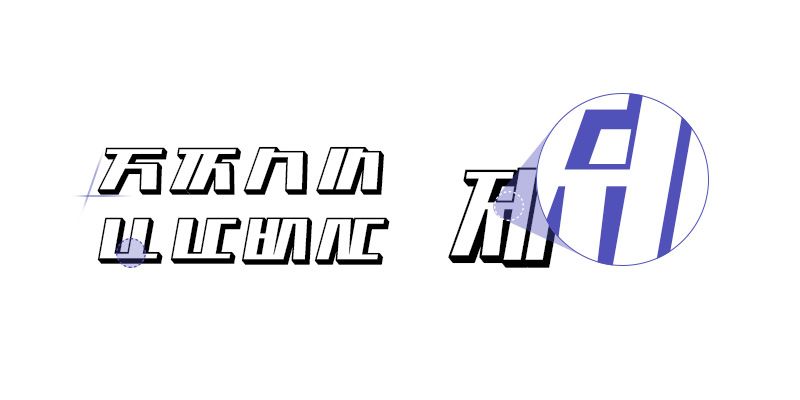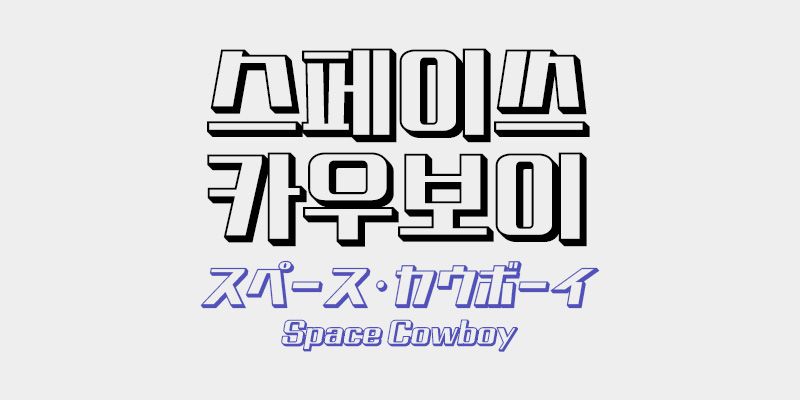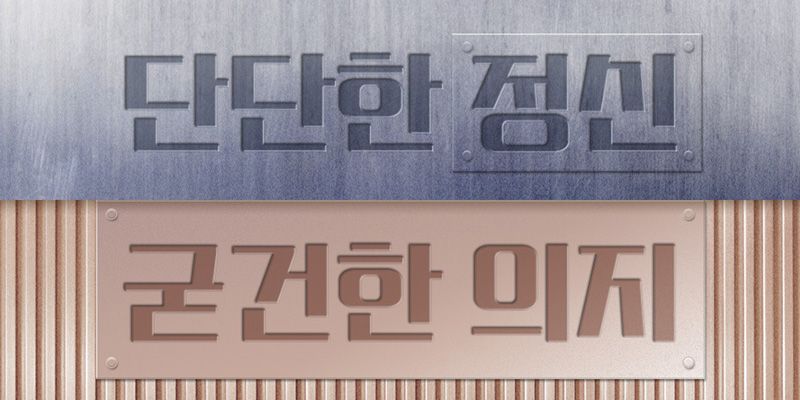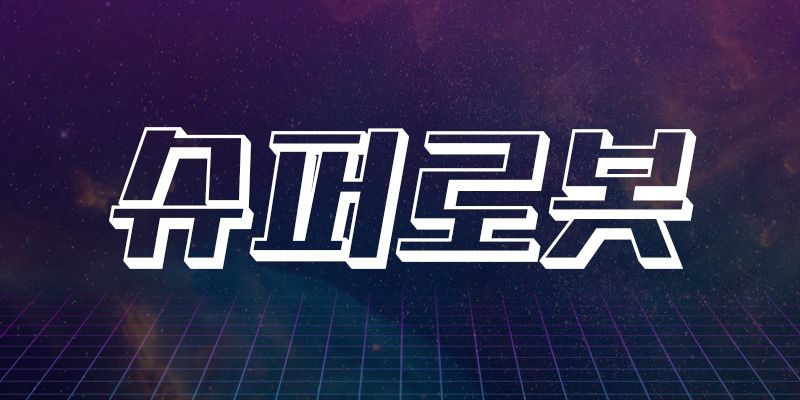
RixSuperRobot was modeled after super robots with superficial energies. The Oblique type was made to enhance its rhythm, and the Shadow type was to make cartoon style by its high attractiveness.